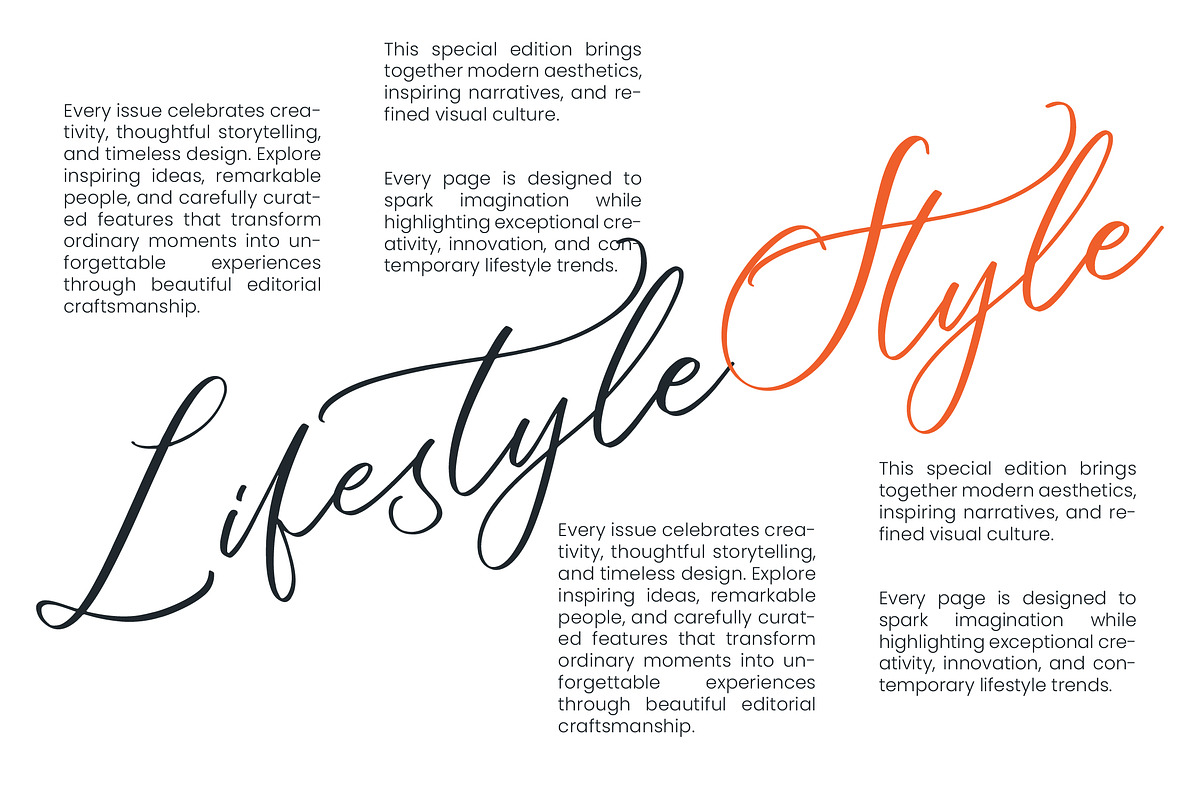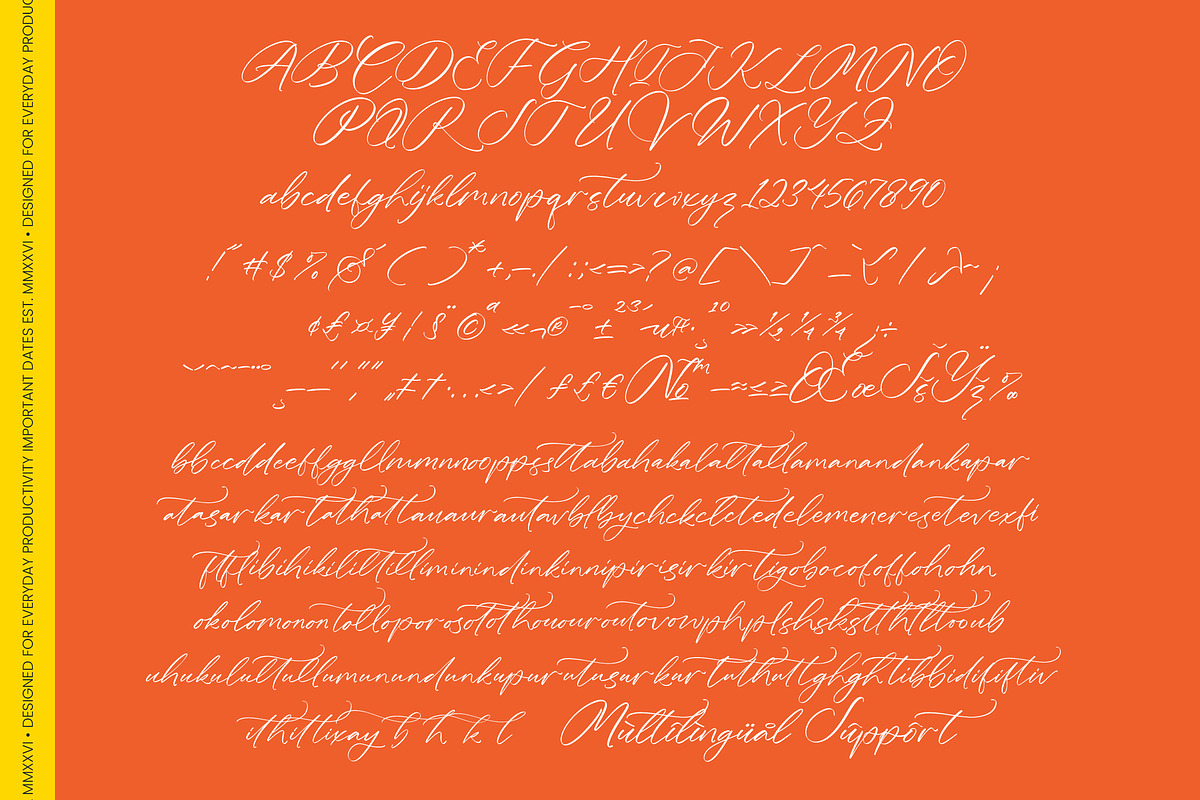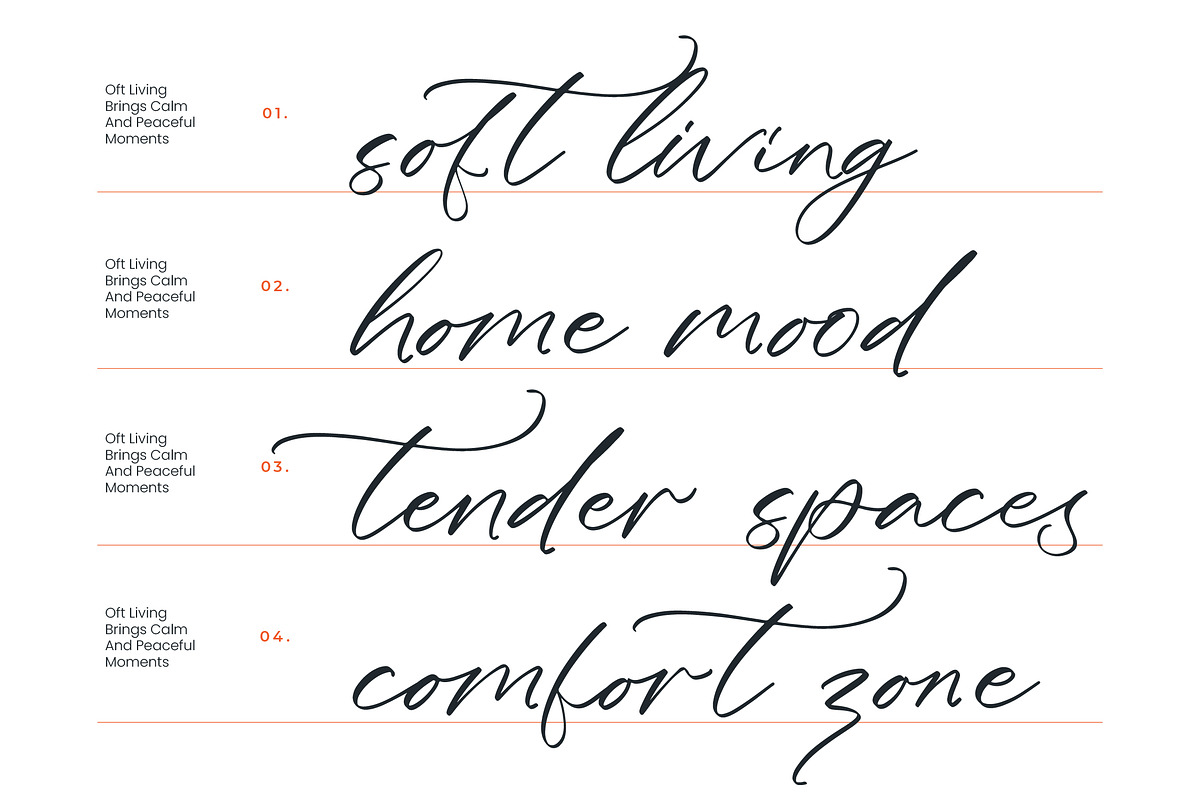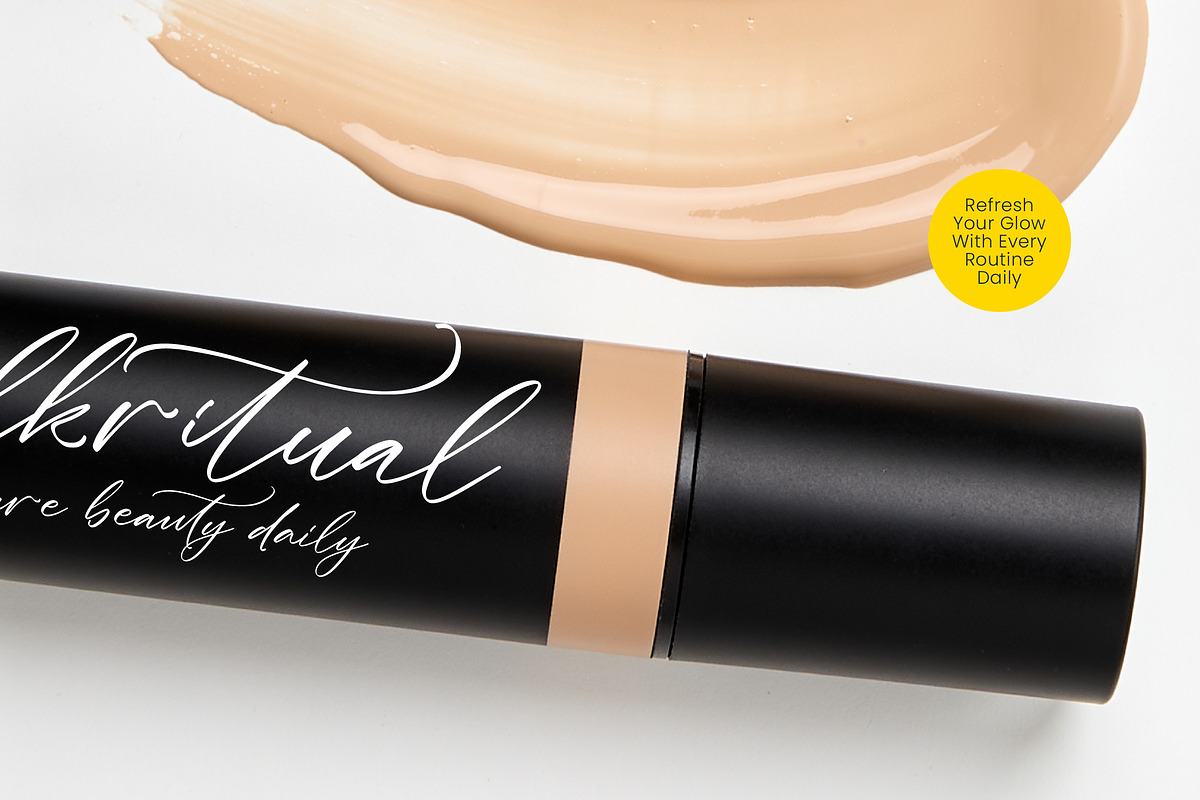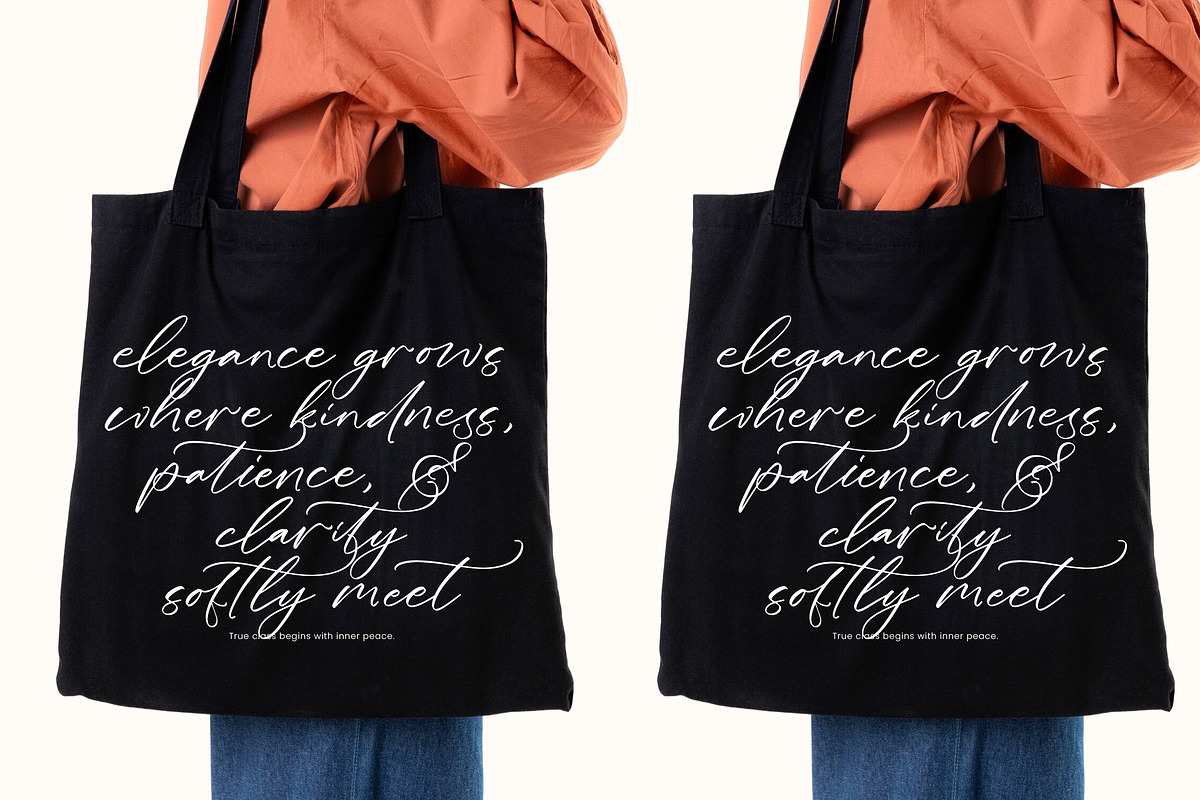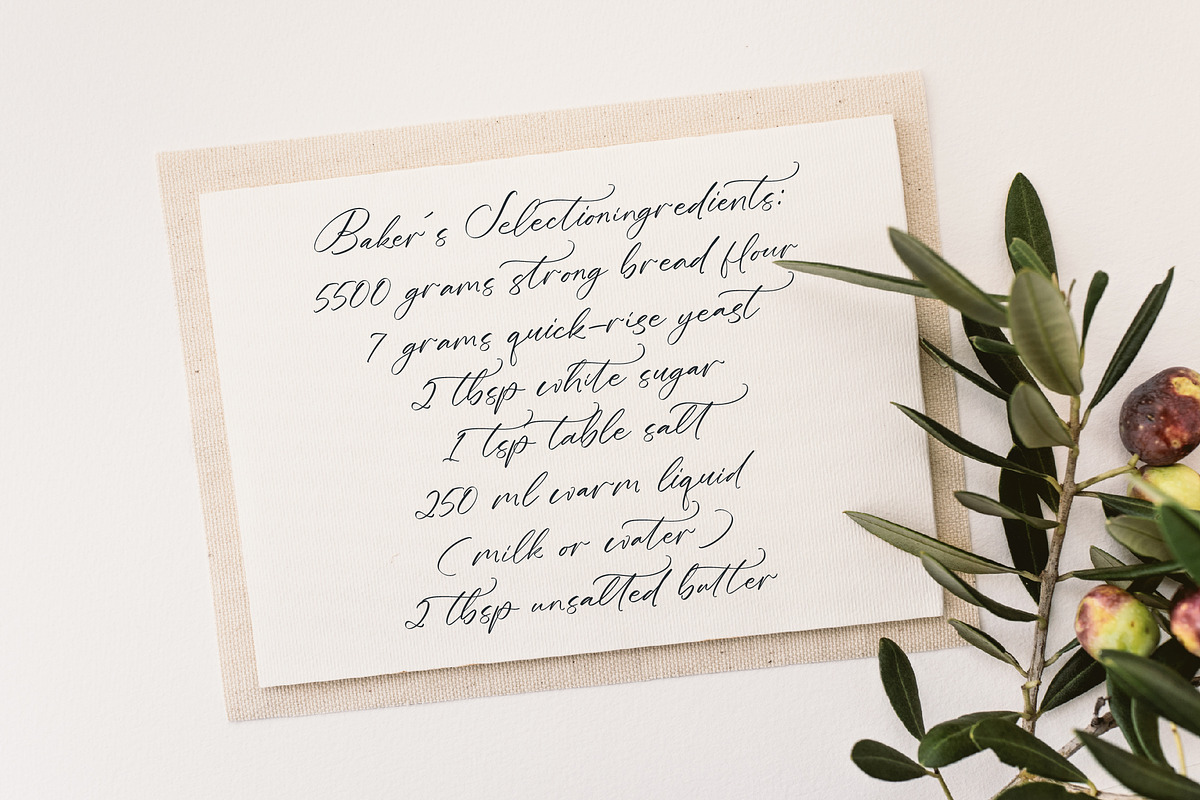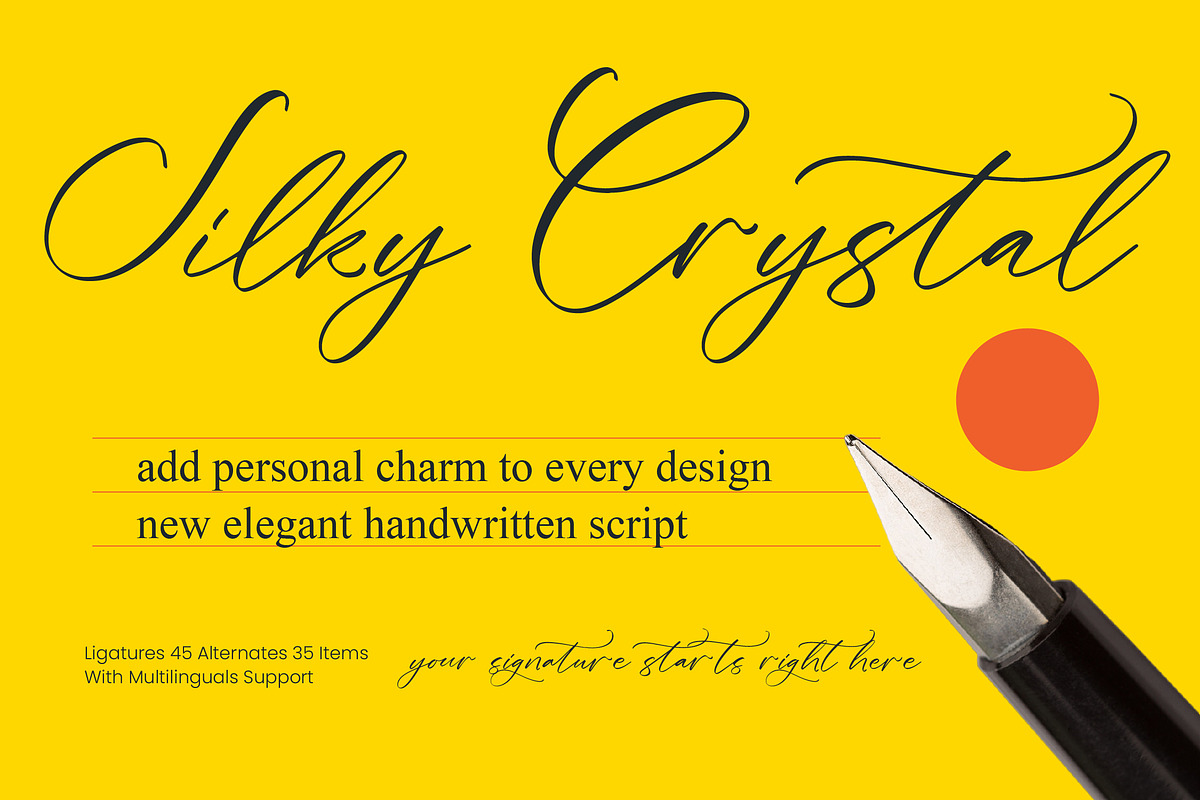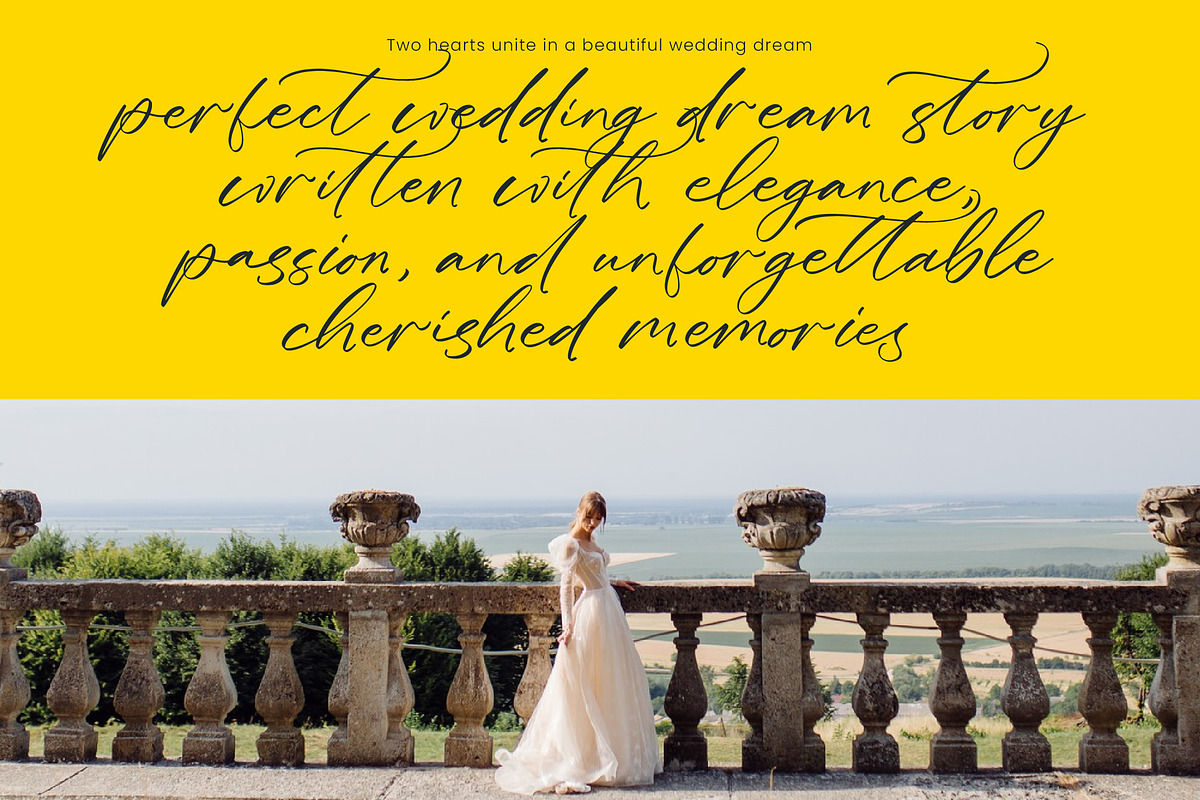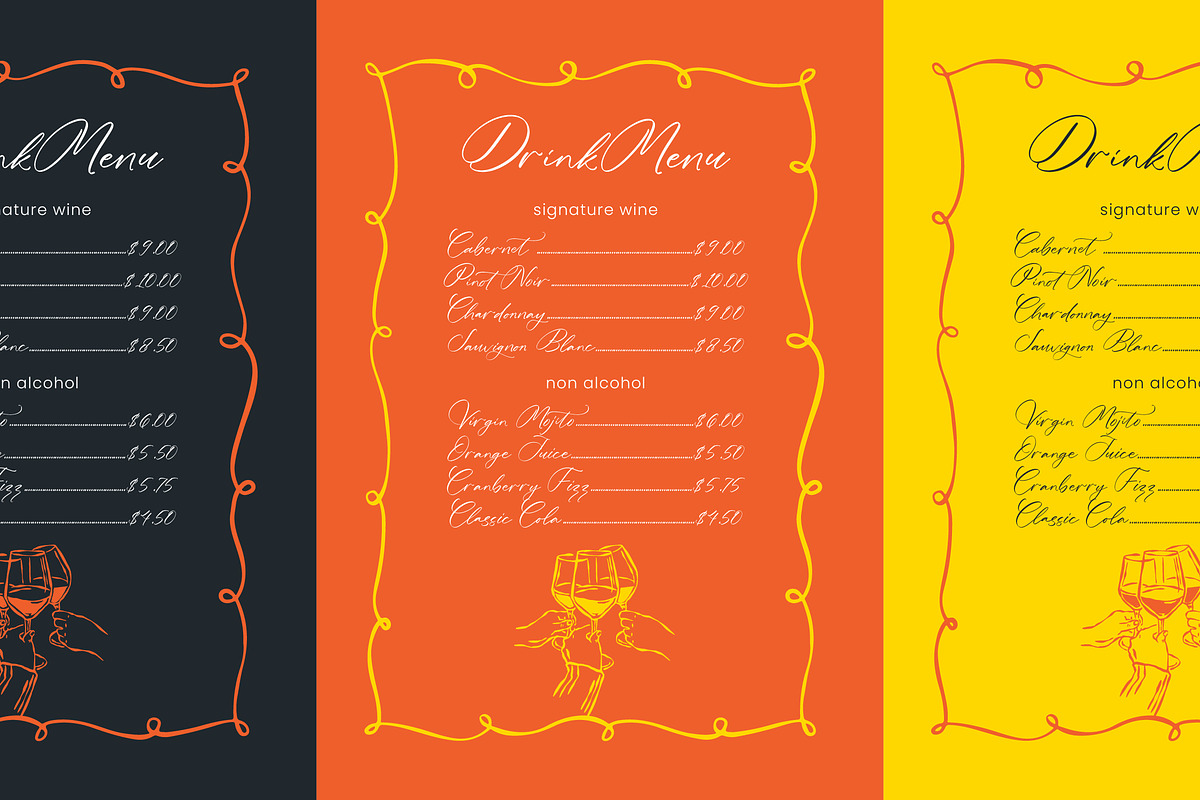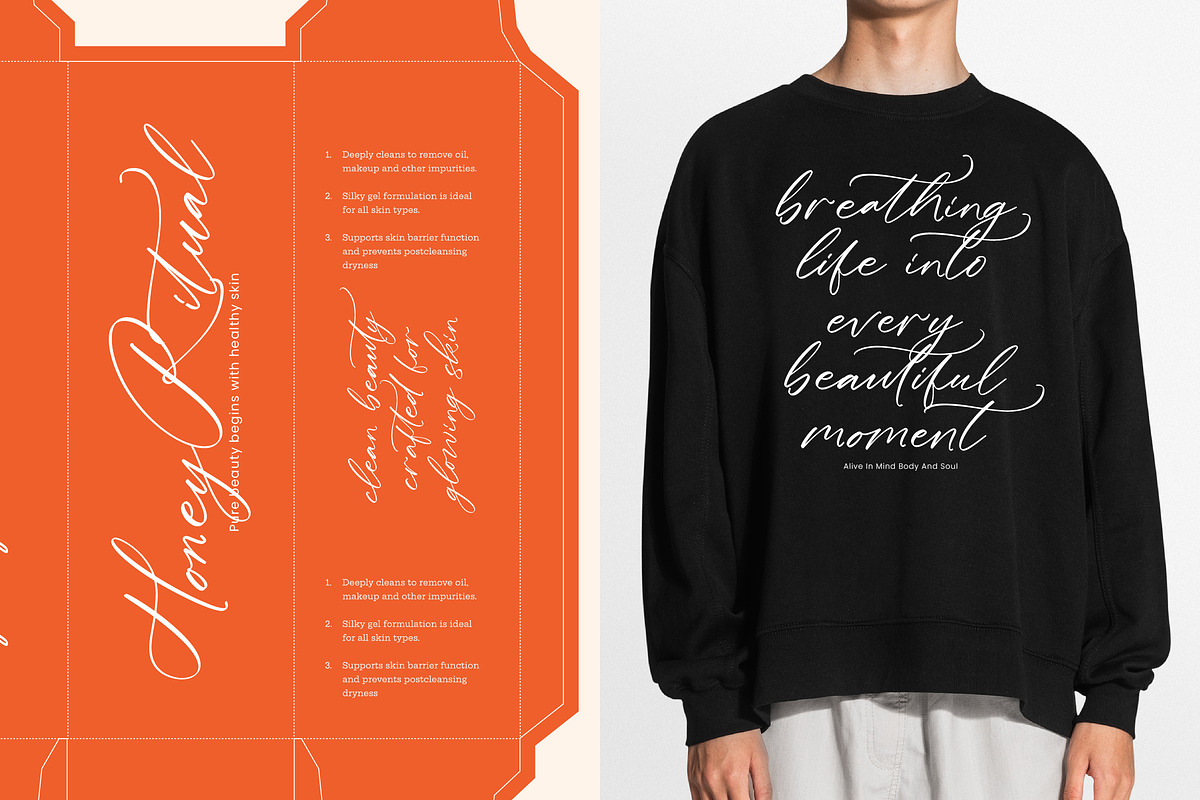
Silky Crystal Elegant Handwritten
Silky Crystal - Elegant Handwritten Script
Elevate your creative vision with a typeface that embodies pure sophistication and organic movement. Silky Crystal - Elegant Handwritten Script is a masterpiece of modern calligraphy, offering fluid strokes and a refined aesthetic that captures the essence of high-end craftsmanship. This font is meticulously designed to provide a natural handwriting feel, ensuring that every word carries a sense of exclusivity and grace that is perfect for discerning clients looking for a high-contrast and expressive design.
Experience unmatched versatility and technical precision with a typeface built for the modern designer. Featuring over 45 ligatures and 35 alternates, Silky Crystal - Elegant Handwritten Script provides endless customization options to create truly unique and organic compositions. With its extensive multilingual support, Silky Crystal - Elegant Handwritten Script adapts seamlessly across global markets, making it incredibly versatile for international projects and diverse branding needs that require a global reach.
Unlock a world of prestige by implementing this script into your most ambitious visual identities. This font is the perfect choice for luxury branding, premium packaging, and high-fashion editorial design, where visual impact is paramount. Whether you are crafting bespoke wedding invitations, sophisticated logos, or high-impact social media graphics, Silky Crystal - Elegant Handwritten Script is ideal for creating a memorable, authentic brand presence that resonates with a premium audience.
Secure a timeless asset for your professional toolkit that guarantees a competitive edge in the crowded design market. By choosing Silky Crystal - Elegant Handwritten Script, you are investing in a high-performance typeface that perfectly blends artistic flair with commercial viability. Transform your projects into works of art and command attention with the effortless elegance and unrivaled charm that only this premium script can deliver for your commercial success.